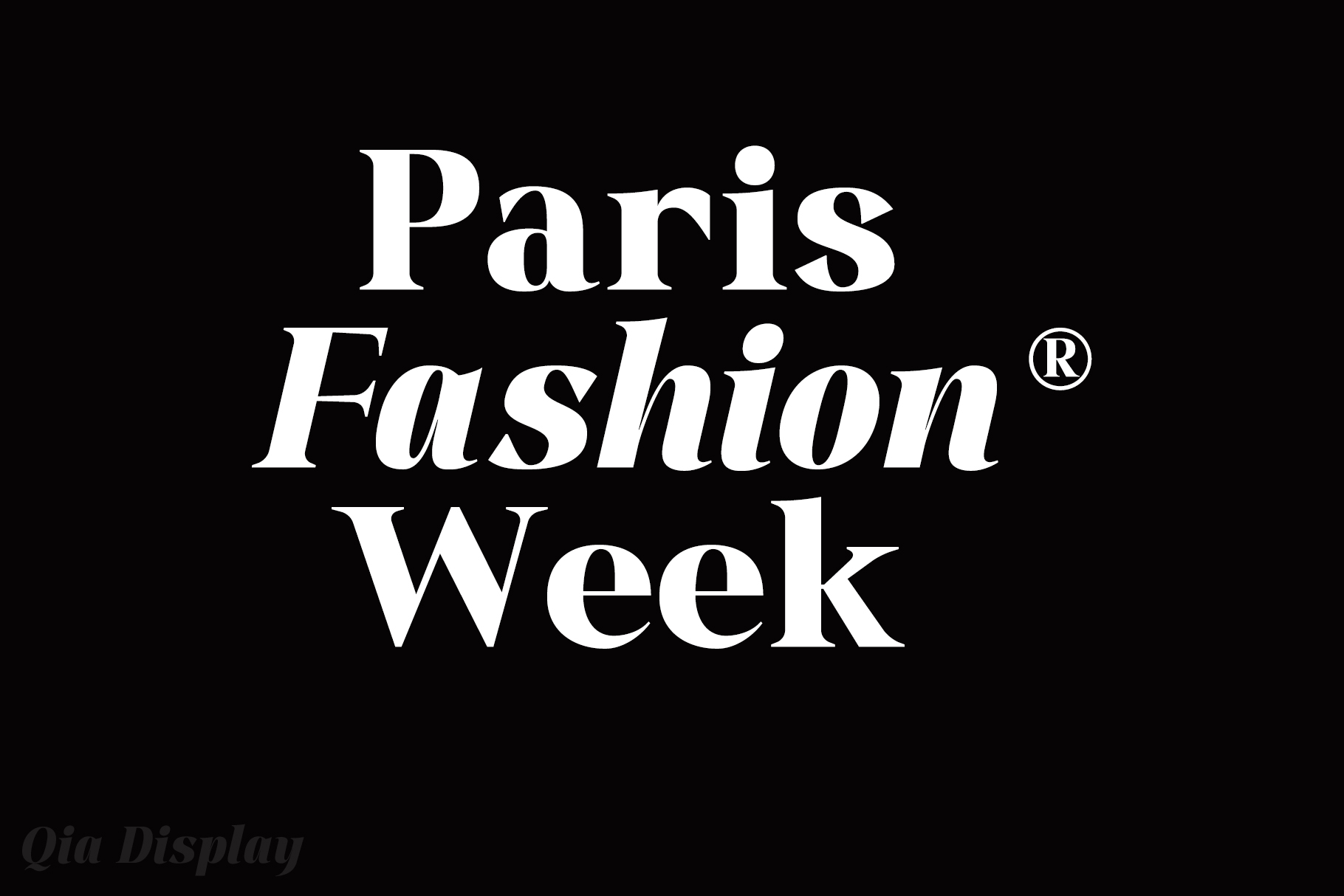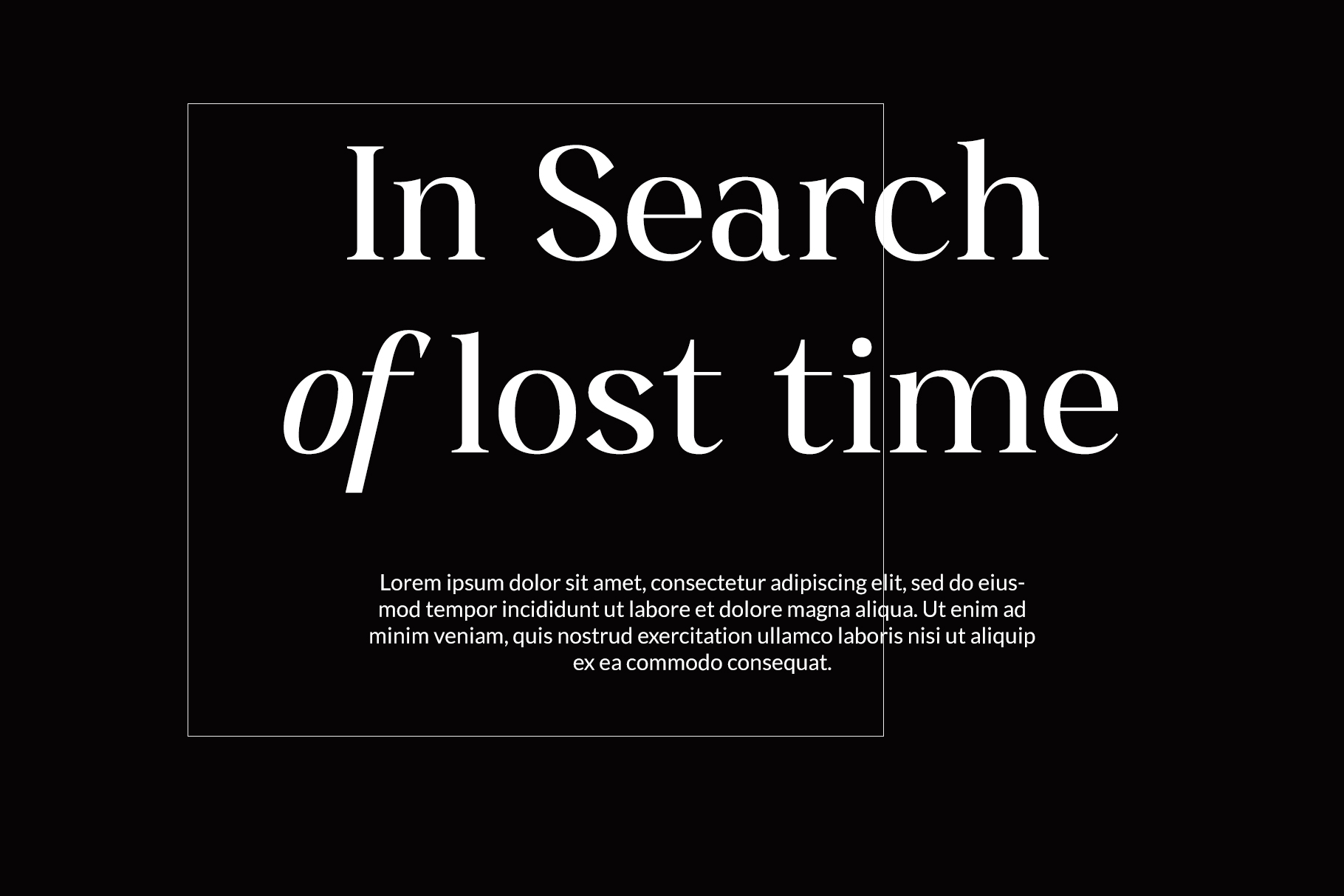
Qia Display Font
Qia Display Font is a modern serif font that embodies elegance and charm in every character. It is perfect for luxury logos, branding, classy editorial designs, women’s magazines, cosmetic brand, promotional designs, the fashion industry, and more.